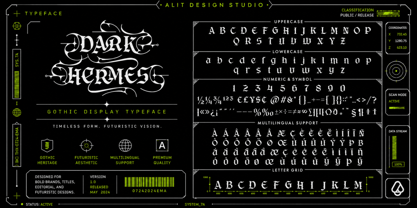
Dark Hermes
by Alit Design
The Dark Hermes Font Family was designed by Alit Suarnegara and published by Alit Design. Dark Hermes contains 1 styles. More about this family
Dark Hermes Typeface – Mythical & Powerful Display Font
Unleash a bold, commanding, and mysterious aura in your designs with Dark Hermes Typeface. Inspired by classic heritage shapes fused with a modern, edgy twist, this typeface strikes a perfect balance between sharp elegance and powerful authority.
Its strong, razor-sharp terminals and unique letterforms are engineered to capture attention instantly, making it an exceptional choice for creators who want to make a lasting statement.
Dark Hermes is a highly versatile display font designed for high-impact projects. It features comprehensive OpenType features, including beautiful alternative characters (stylistic alternates) and unique ligatures that allow you to create custom typographic layouts effortlessly.
Perfect for Various Design Projects:
• Branding & Logos: Create unforgettable brand identities, emblems, and corporate marks.
• Editorial & Headlines: Ideal for bold magazine covers, striking book titles, and massive website headers.
• Merchandise & Apparel: Elevate t-shirt designs, streetwear branding, and luxury packaging.
• Marketing & Posters: Perfect for cinematic posters, event flyers, game titles, and social media graphics.
What’s Included:
• Standard Character Set (Uppercase & Lowercase)
• Numerals, Punctuation, and Symbols
• Unique Stylistic Alternates & Ligatures
• Multi-lingual Support (Western European, Central European, etc.)
Why Choose Dark Hermes Typeface?
• Professional Quality: Clean vector lines and meticulous kerning ensure flawless rendering at any scale.
• Versatile Stylistic Options: Easily swap standard glyphs for stunning alternates to give your logo or title a bespoke, handcrafted feel.
Bring power, mystery, and unparalleled style to your design toolkit today with Dark Hermes Typeface!
Designers: Alit Suarnegara
Foundry: Alit Design